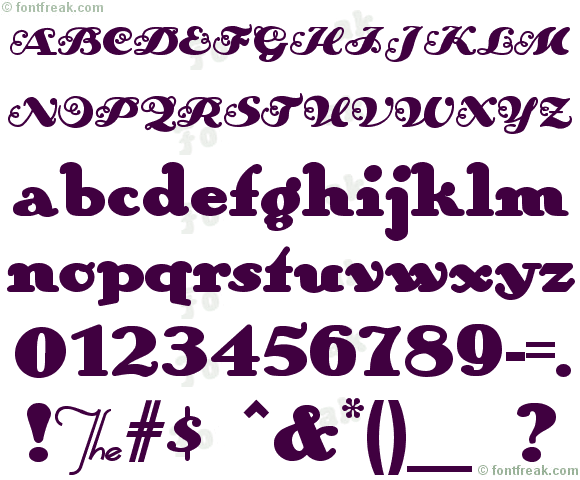
AnAkronism
About AnAkronism
AnAkronism is a unique display font designed by Nick Curtis in 1999, available as a freeware typeface. This font falls into the decorative category, characterized by its playful and whimsical style. The AnAkronism font features a bold stroke weight that adds a sense of presence to any design. Its distinctive letterforms are adorned with stylish curls and flourishes, contributing to a lively and artistic aesthetic. The contrast between thick and thin strokes gives the font a dynamic appearance, while the spacing between characters is thoughtfully designed to maintain readability without sacrificing its decorative flair.
This font is particularly well-suited for a variety of creative projects. It shines in the realm of wedding invitations, where its elegant curves can convey romance and celebration. Additionally, AnAkronism is an excellent choice for movie posters, especially for films that embrace a quirky or avant-garde theme. Restaurant menus can benefit from its eye-catching style, drawing customers' attention to special dishes or drink selections. Furthermore, this font is perfect for branding materials aimed at young, trendy businesses, where a unique visual identity is essential.
The target audience for AnAkronism includes graphic designers looking to infuse personality into their projects, small business owners aiming to create memorable marketing materials, and content creators seeking a fun, distinctive typeface to enhance their visual storytelling.